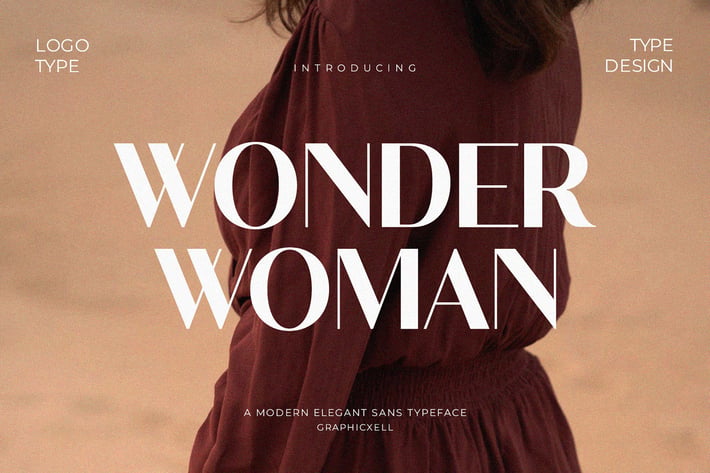
Wonder Woman Elegant Sans Serif Font
Wonder Woman is a bold and elegant sans-serif font that blends clean lines with graceful curves. It brings a modern yet timeless feel to any design. As a result, it fits well with branding, editorial design, packaging, and digital content. Moreover, it reads clearly in both headlines and body text.
Because of its smooth and open letterforms, this font enhances readability across mediums. For example, it works beautifully on websites, social media graphics, and print layouts. Additionally, its balanced stroke widths give text a sense of strength without overwhelming the viewer. Consequently, Wonder Woman adds a confident yet refined character to your projects.
In fact, its simple structure makes it ideal for logos, product labels, posters, and user interfaces. Likewise, it suits fashion catalogs, business cards, and marketing materials. Furthermore, the spacing and uniform shape help maintain clean alignment in layouts. Thus, it offers flexibility for designers working in both digital and print workflows.
Key features include:
- Smooth sans-serif design with elegant curve details
- Versatile for both display and body text use
- Multiple language support for global designs
- OpenType options such as ligatures and stylistic alternates
Why choose Wonder Woman?
- Modern elegance that enhances brand presence
- High readability, even in longer text blocks
- Flexible use from digital ads to print layouts
- Custom styling tools via OpenType features
- Balanced design that fits many design styles
Overall, Wonder Woman offers a smart blend of sophistication and simplicity. Therefore, it boosts your visual identity whether you design logos, magazines, web pages, or packaging. Plus, it stays sharp, clean, and stylish across different formats. Whether you aim for a strong branding message or a polished editorial layout, this font supports your vision with clarity and elegance.